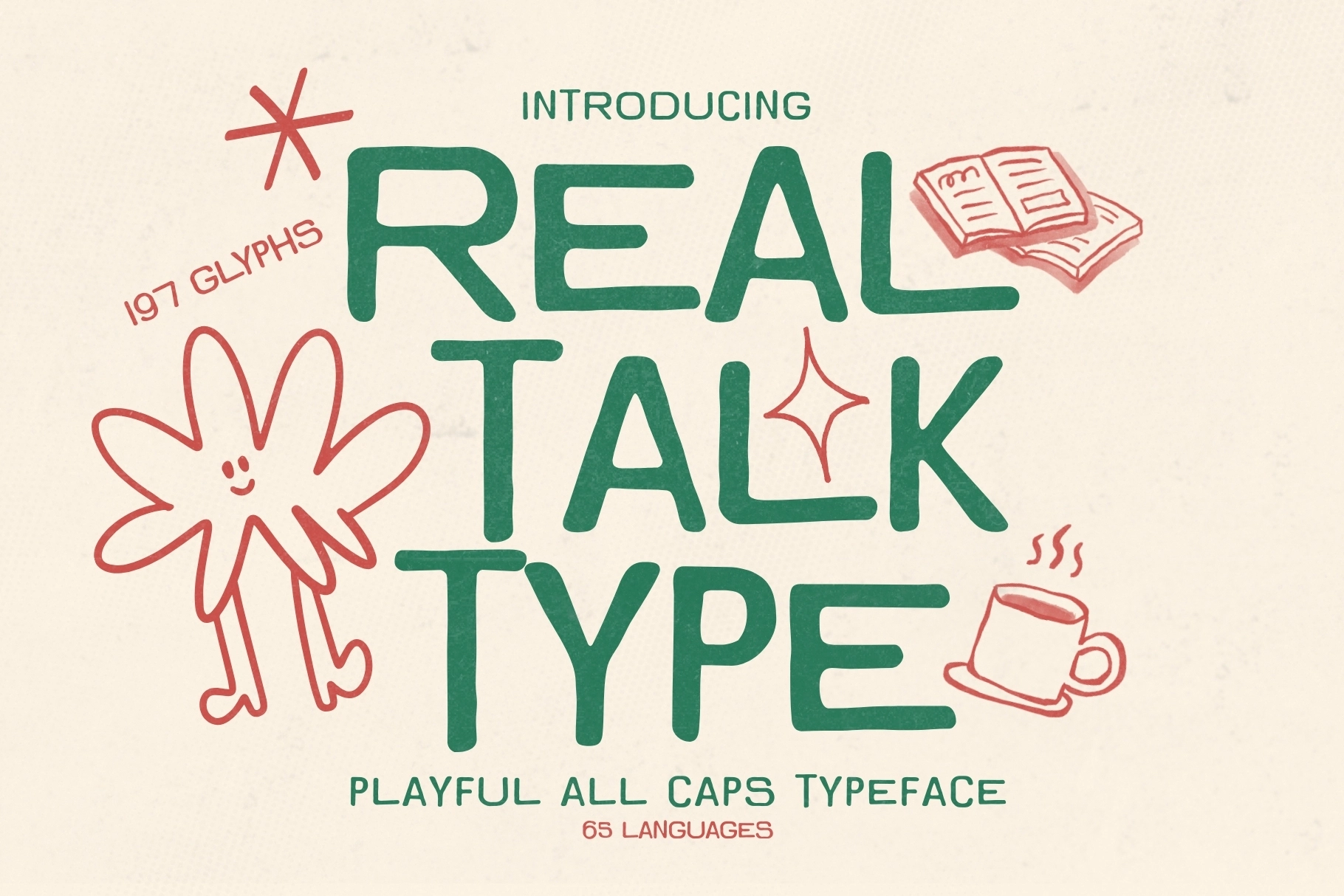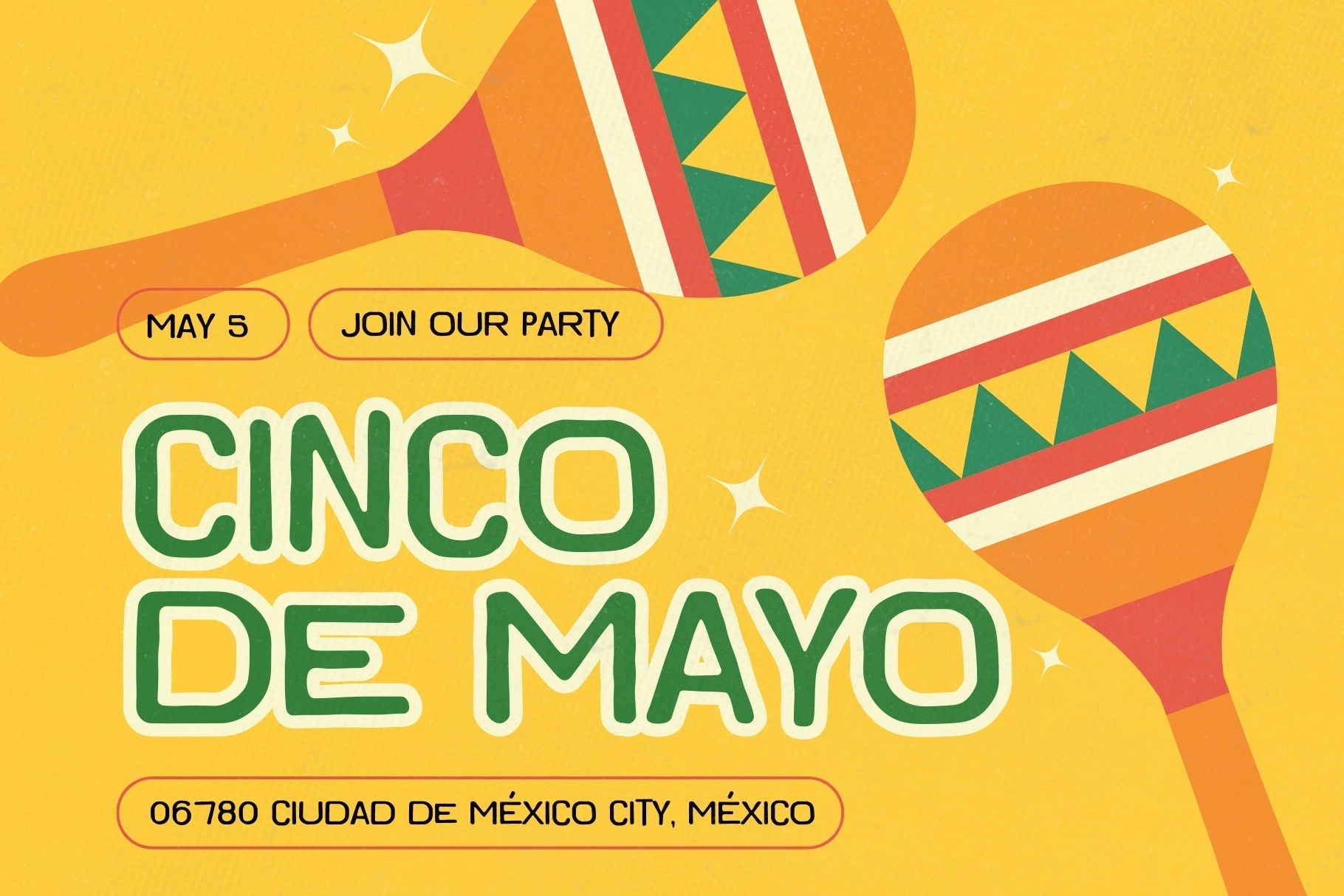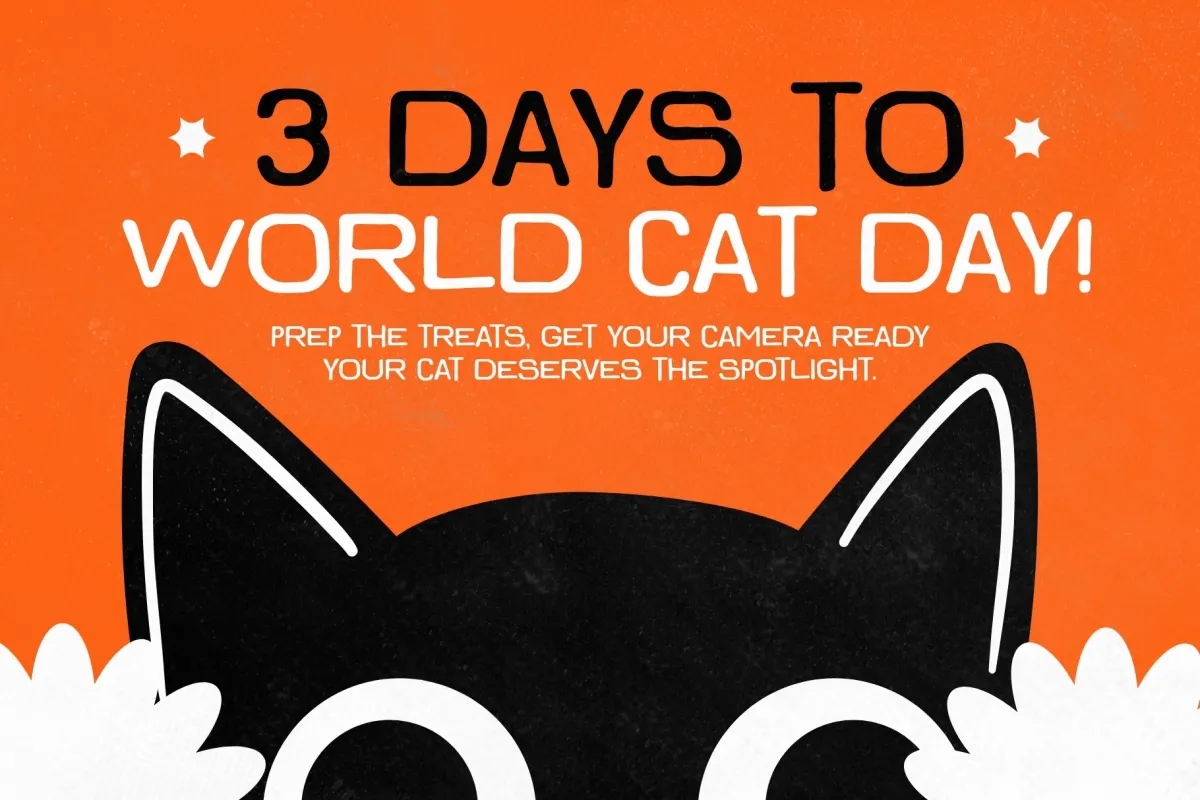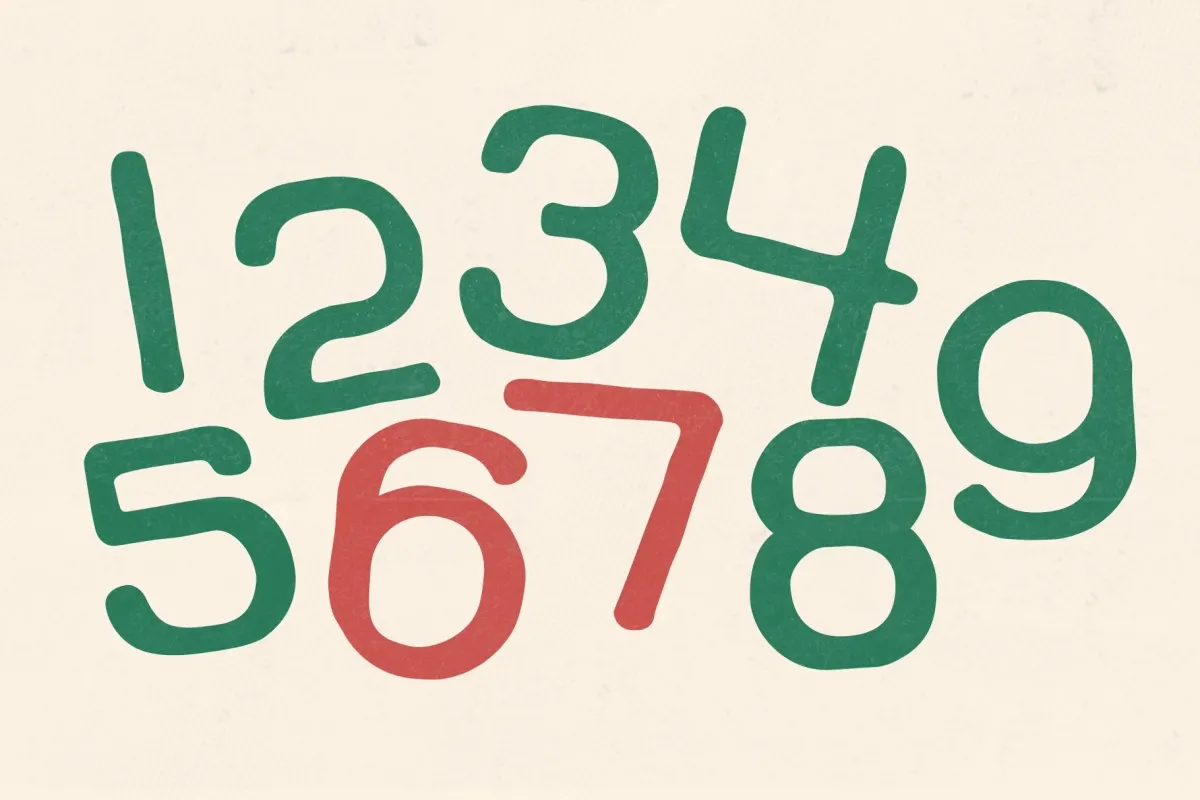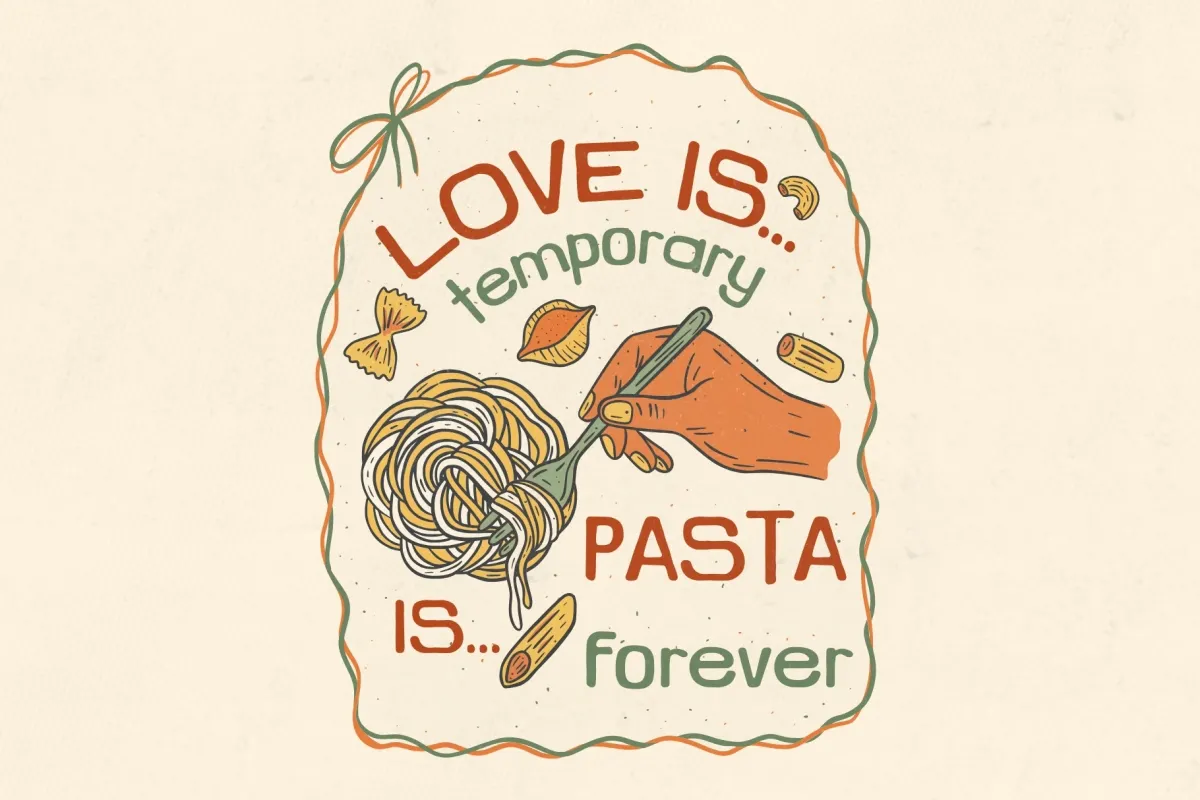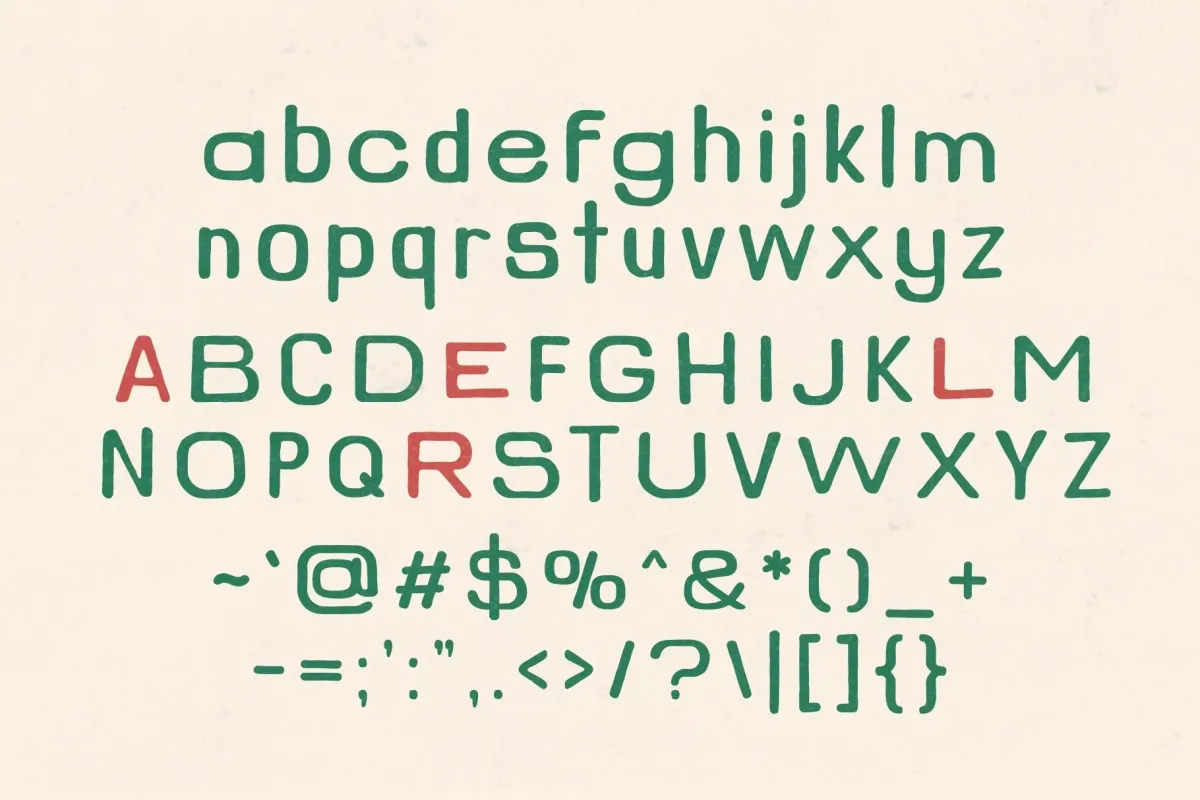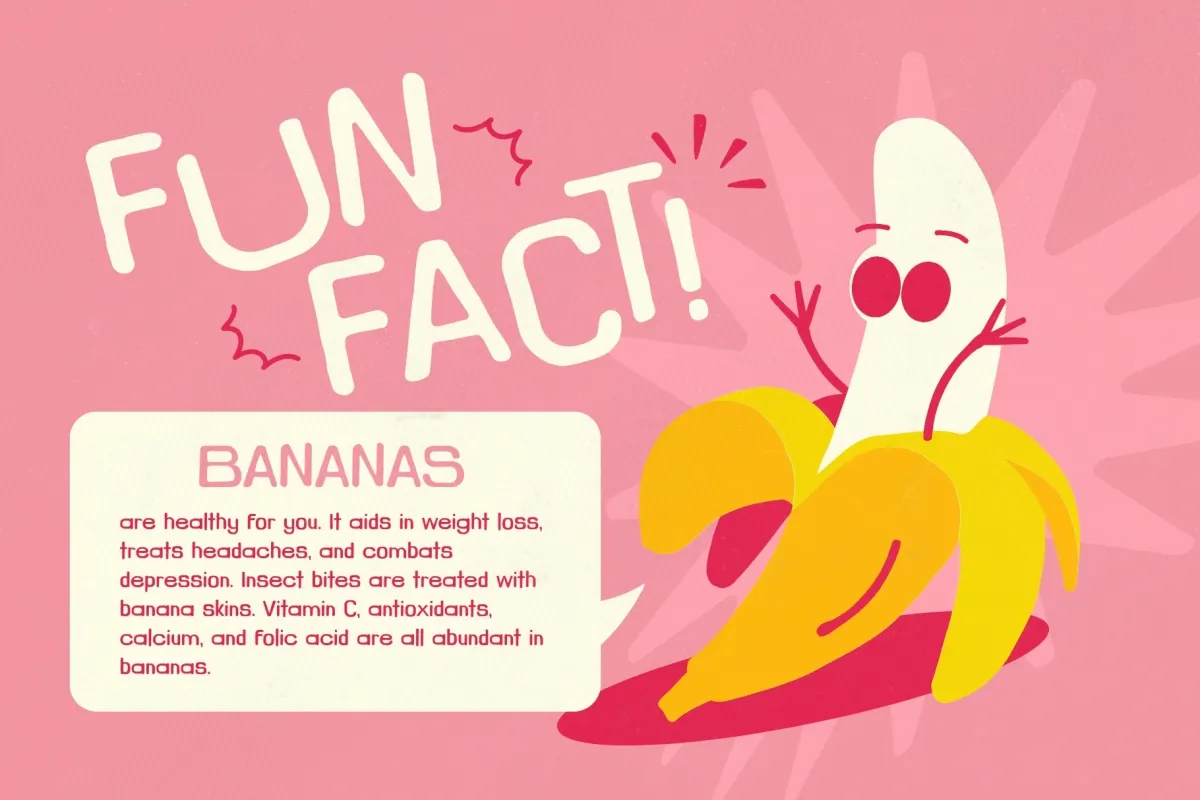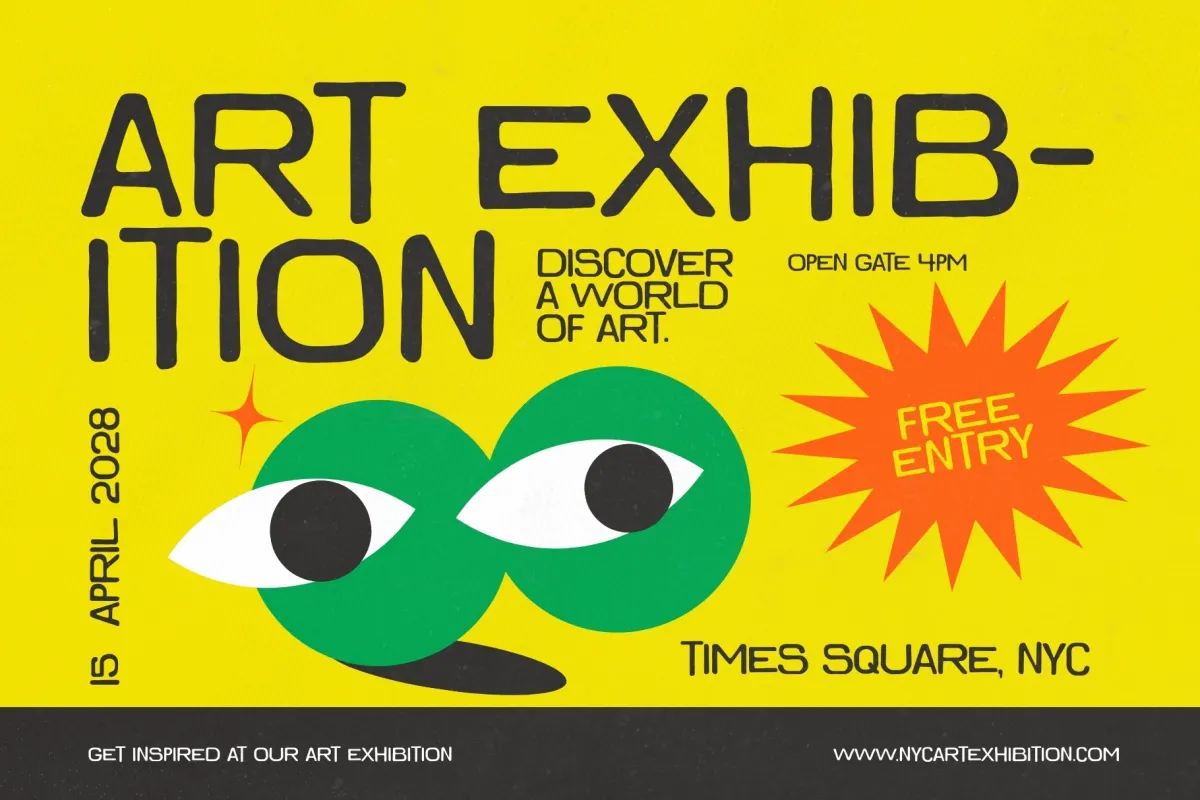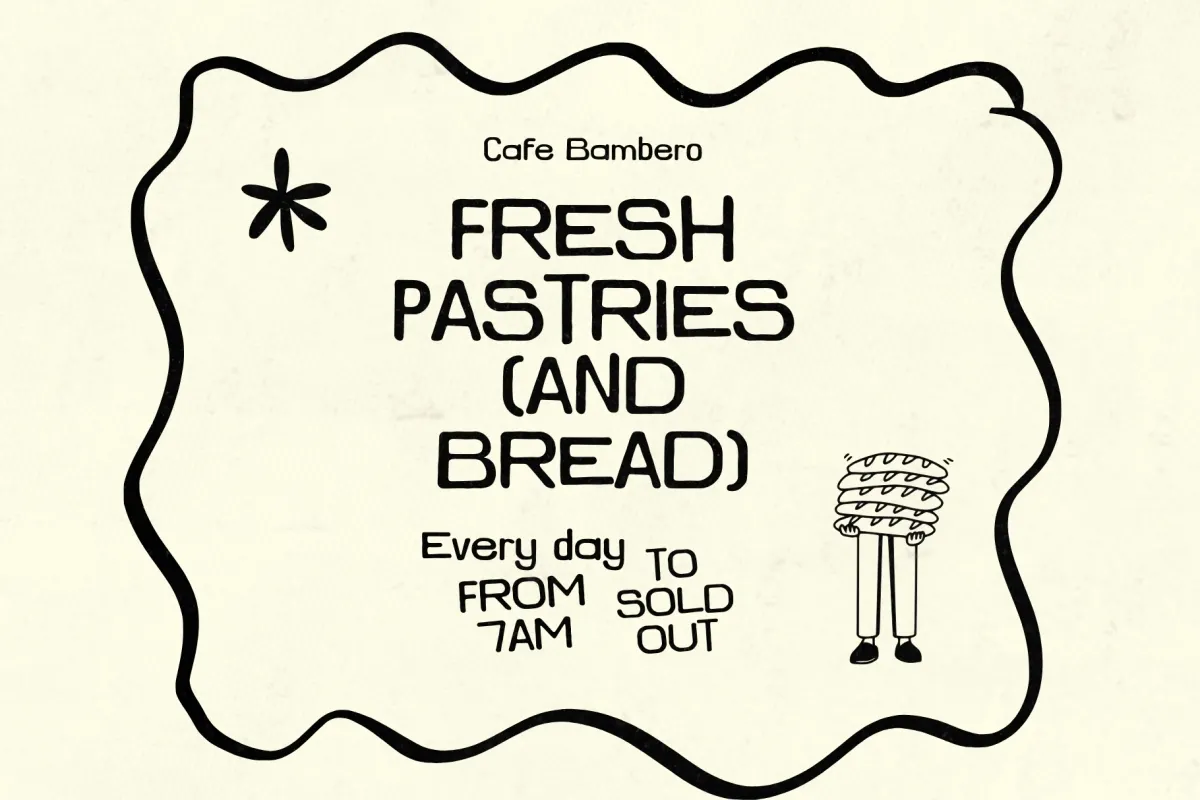
Real Talk Type - Playful Rounded Retro Font
Real Talk Type
Real Talk Type – Playful Rounded Retro Font is a friendly handwritten display typeface that blends retro charm with modern personality. Designed with rounded shapes and natural hand-drawn imperfections, this playful font brings warmth, authenticity, and a relaxed creative energy to any design. Its casual rhythm and soft curves make every letter feel human, expressive, and approachable.
Perfect for branding, packaging, posters, social media graphics, and lifestyle projects, Real Talk Type delivers bold readability while keeping a fun, handcrafted character. Whether used for food branding, retro designs, or playful headlines, this font adds personality and charm that instantly makes layouts feel lively and memorable.
- Uppercase & Lowercase Characters
- Numerals & Punctuation
- Playful Rounded Letterforms
- Hand-Drawn Style